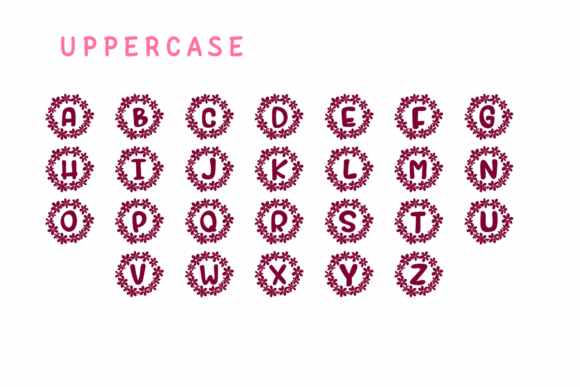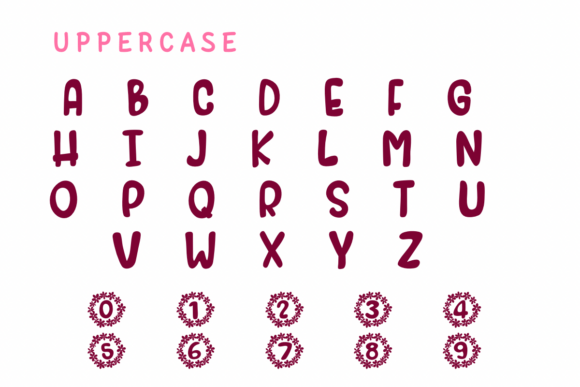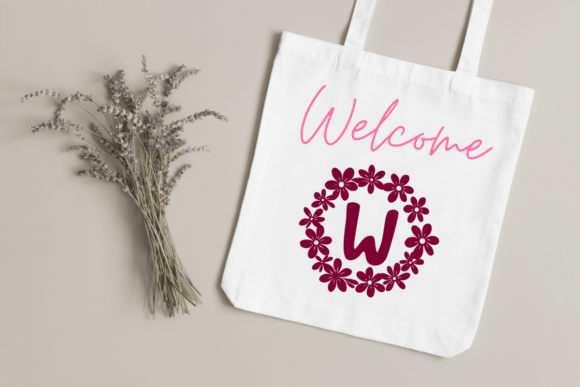
Introduction to Season Flowers Font
Season Flowers is a decorative font.
You can use it for taking notes, writing a diary, or making greeting cards However, you can still use it for other designs, such as banners, content, mugs, cards, shirts, stationery, social media posts, and more.
Season Flowers Font offers exceptional quality and versatility, making it a valuable addition to your design toolkit. Whether you’re creating for personal projects or commercial use, Season Flowers Font delivers professional results.